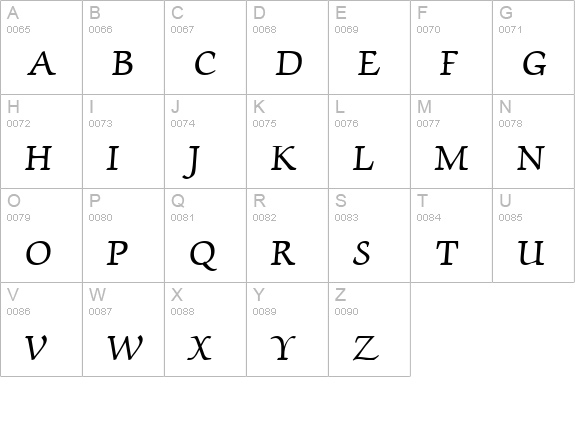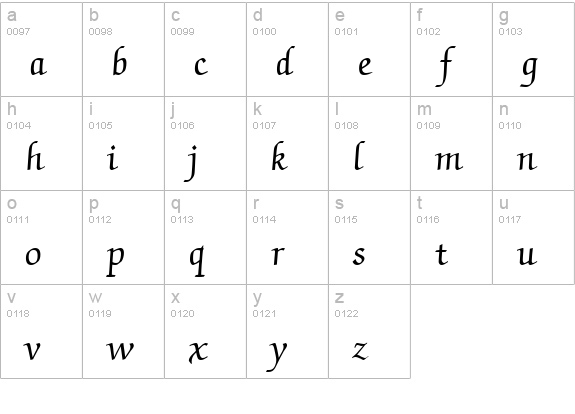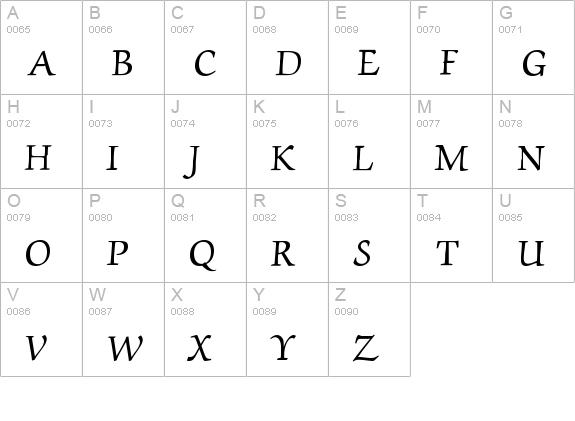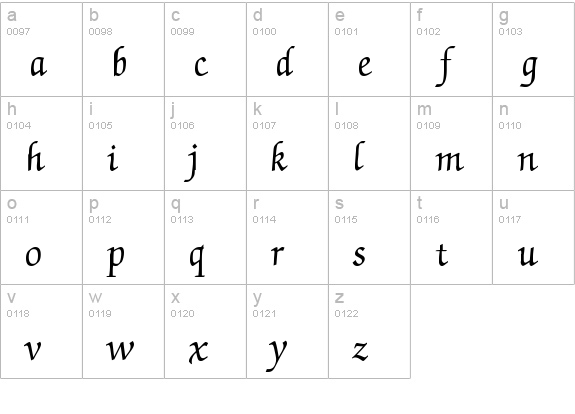
Zapf Chancery Medium BT Font Details
Zapf Chancery Medium BT is a balanced, medium-weight variant in the Zapf typeface family \xE2\x80\x94 well suited to sub-headlines, navigation, and balanced editorial work.
Zapf Chancery Medium BT is a classic and elegant font that exudes sophistication and charm. With its graceful curves and intricate details, this font is perfect for adding a touch of refinement to any project. Whether you are creating invitations, certificates, or other formal documents, Zapf Chancery Medium BT will elevate your design to new heights. The versatility of this font makes it suitable for a wide range of applications, from wedding stationery to business presentations. Its medium weight strikes the perfect balance between readability and style, making it a popular choice among designers and typographers. And the best part? Zapf Chancery Medium BT is available for free download at FontsMarket.com. You can easily access this exquisite font and incorporate it into your projects without any cost. Don't miss out on this opportunity to enhance your designs with the timeless beauty of Zapf Chancery Medium BT.